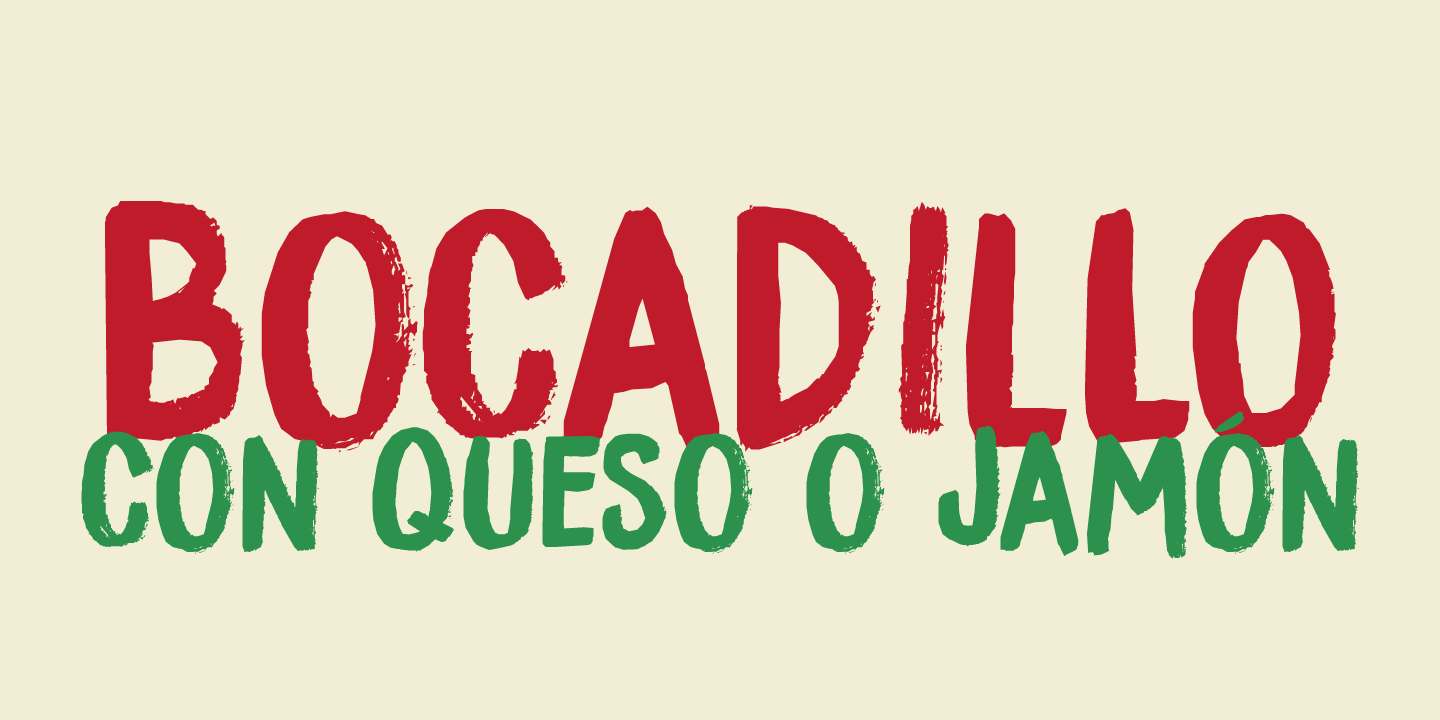
Bocadillo Font is perfect for comic book lettering, graphic novel dialogue, cartoon speech bubbles, manga translations, children's book illustrations, animated series credits, gaming interface design, social media graphics, fun advertising campaigns, and playful branding projects. This expressive typeface brings authentic comic book charm to any creative design project.
Bocadillo Font is exciting because it perfectly captures the dynamic energy and visual storytelling power of comic book typography. Its hand-drawn appearance and balloon-inspired letterforms create an immediate connection with readers, making text feel alive and engaging while maintaining excellent readability across different sizes and applications.
Bocadillo Font family includes multiple weights and styles: Regular, Bold, Light, Italic, Condensed, Expanded, Shadow, Outline, and specialized comic variants. Each style preserves the playful comic book aesthetic while offering designers versatility for creating engaging visual narratives and dynamic text hierarchies.
Whether you're creating webcomics, children's content, or playful marketing materials, Bocadillo Font Free Download delivers authentic comic book appeal that captures attention instantly. This charming typeface combines traditional comic lettering heritage with modern digital design needs, making it essential for creators who want to add personality and visual interest to their projects. The font's organic feel and expressive character make every word pop off the page.